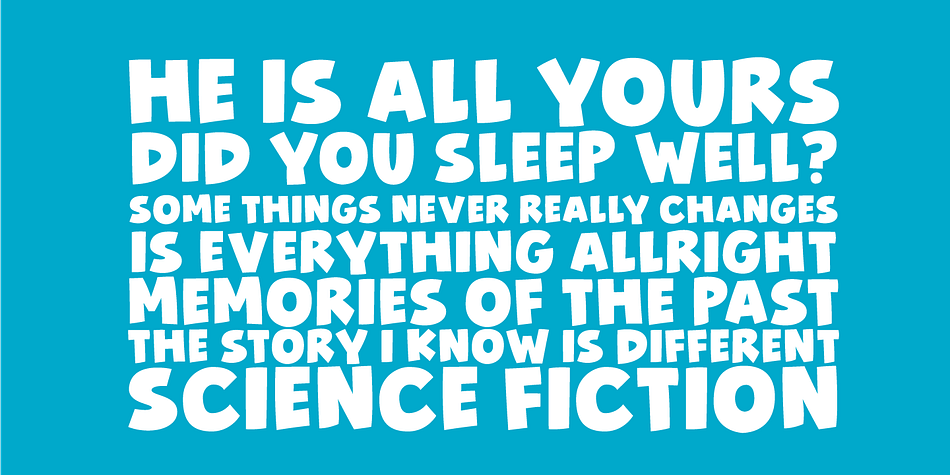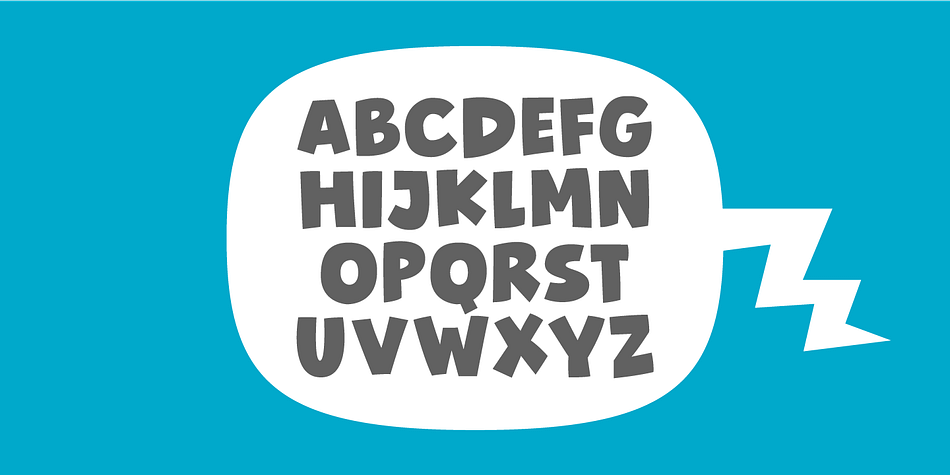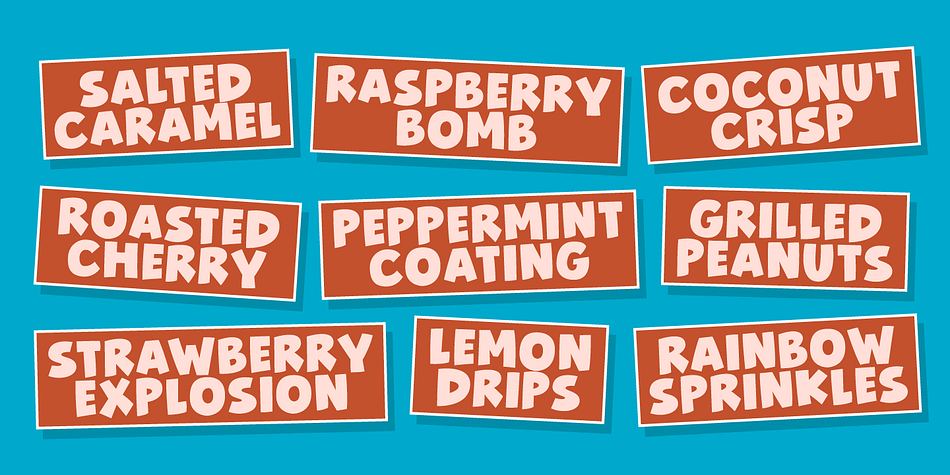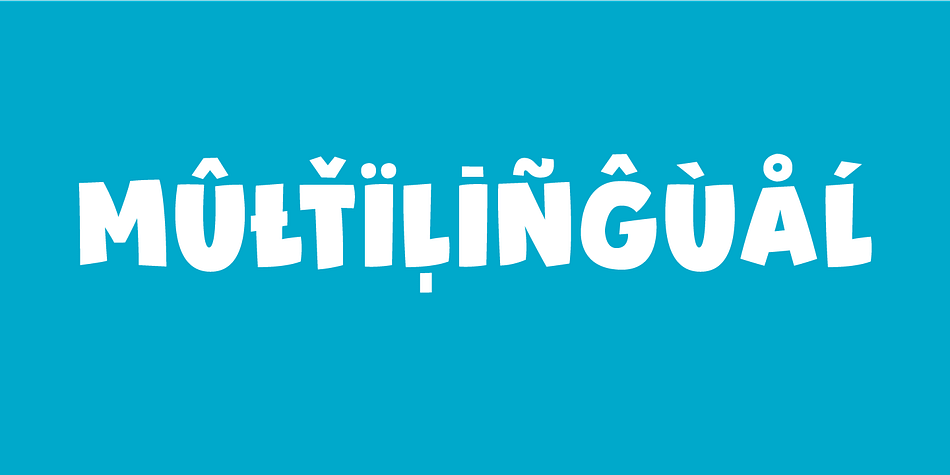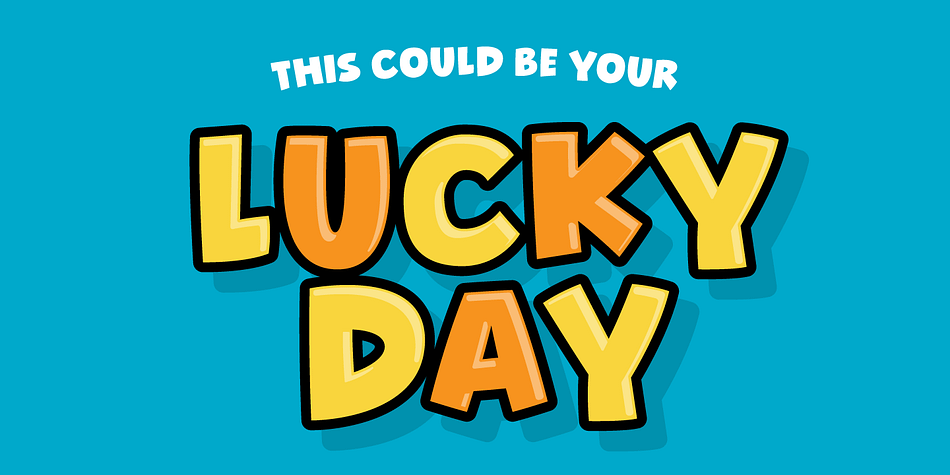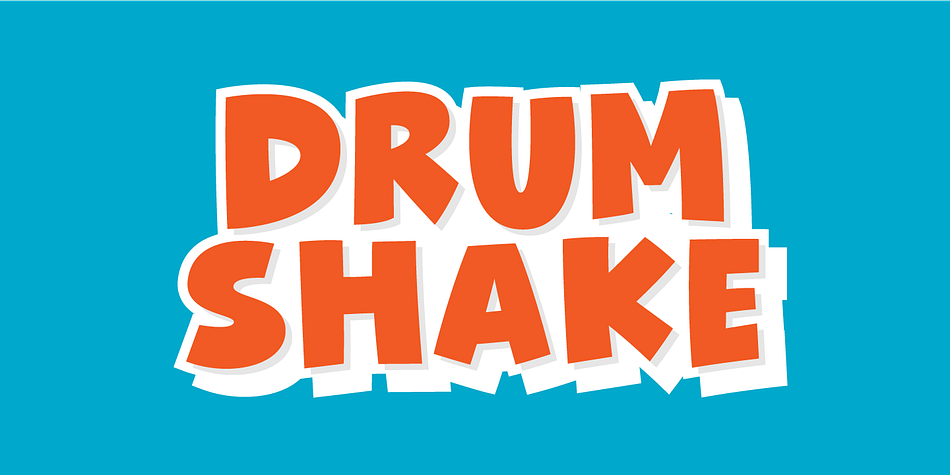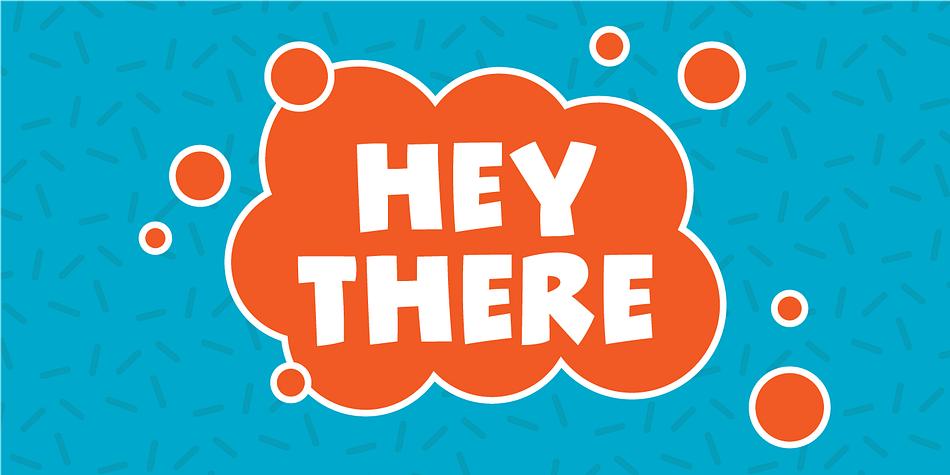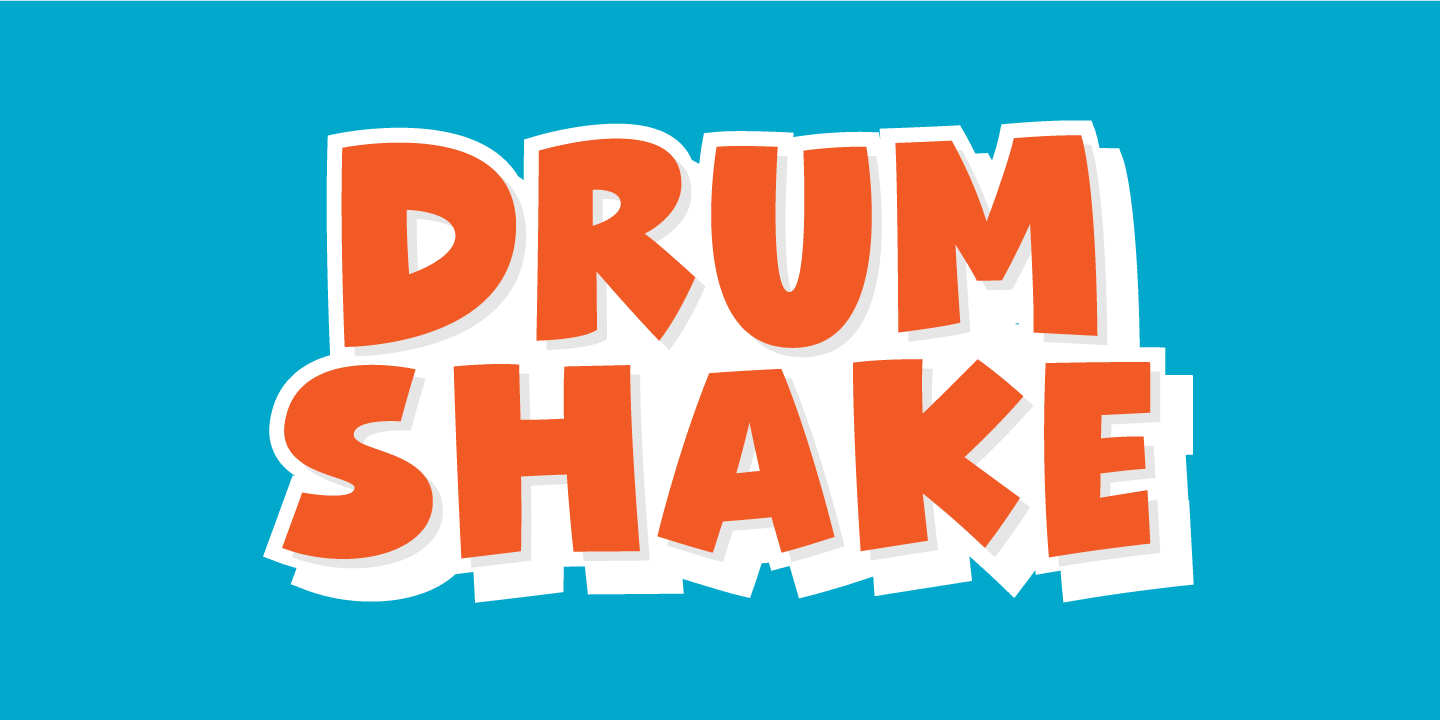
Designed by Jakob Fischer, Drum Shake is a comic and hand drawn font family. This typeface has two styles and was published by Pizzadude.dk.
Drum Shake is my friendly, all-caps comicbook font - ready to serve and protect your next design!